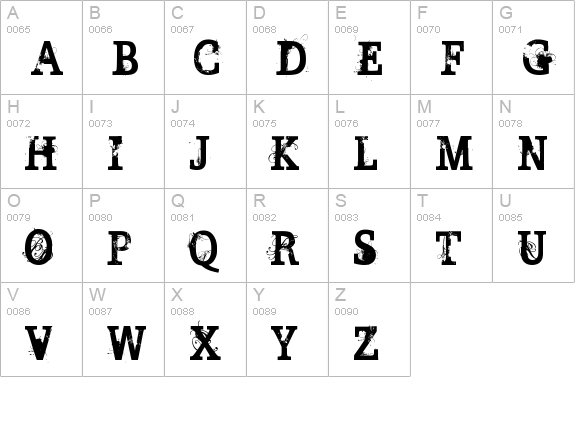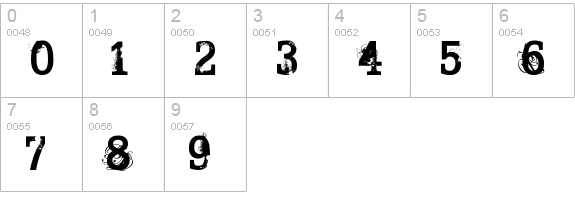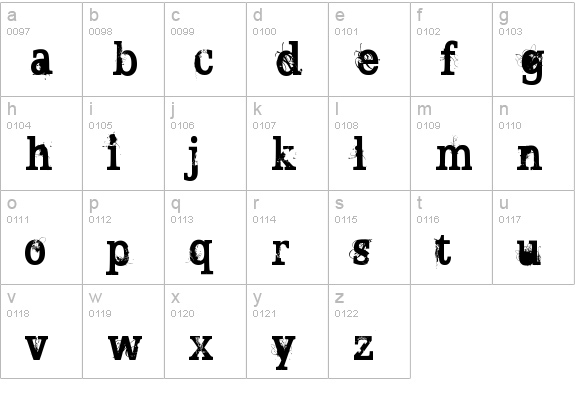
BROKEN GHOST Font Details
Introducing the captivating BROKEN GHOST font, a unique and edgy typeface that exudes a mysterious charm. This font features jagged lines and irregular shapes that give it a hauntingly beautiful appearance, perfect for adding a touch of intrigue to your design projects. BROKEN GHOST is a versatile font that can be used for a variety of purposes, from branding to social media graphics. The best part? BROKEN GHOST font is available for free download at FontsMarket.com. This means you can easily access this stunning font and incorporate it into your designs without any cost. Don't miss out on the opportunity to elevate your creations with the enchanting BROKEN GHOST font - download it today and unleash your creativity!